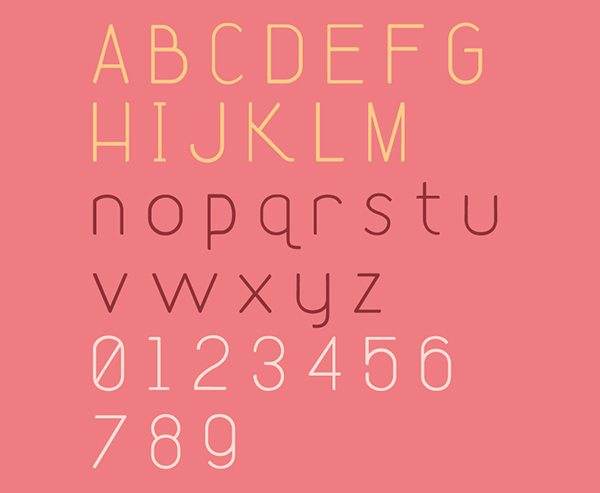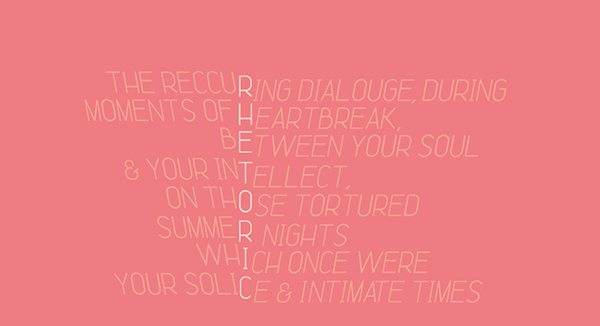
Fonts Free Font Of The Day #119 – Rhetoric Font by Yayang Apryana February 18, 2015 Rhetoric Font is a free sans serif font, Feel free to use it for personal and commercial. Designed by Tshepo Mosoeu. Download